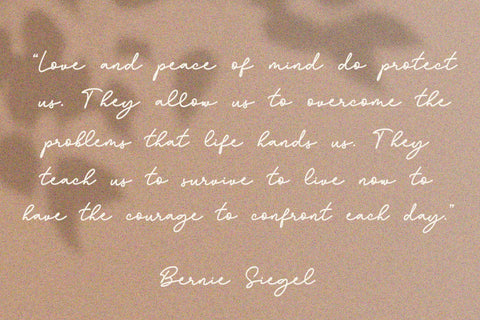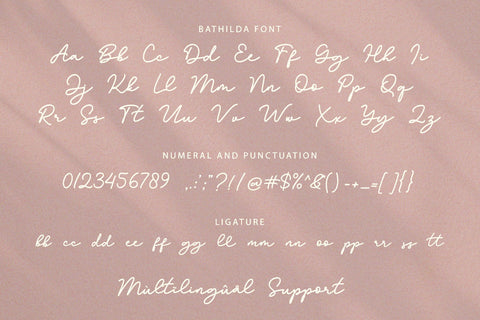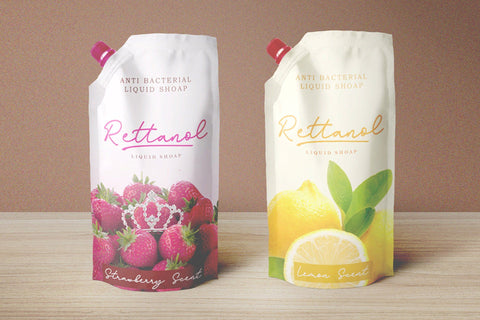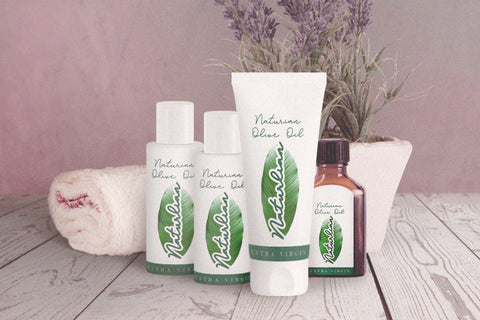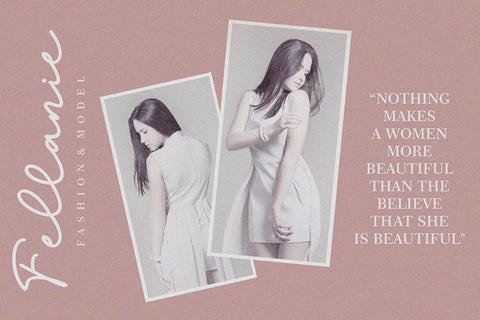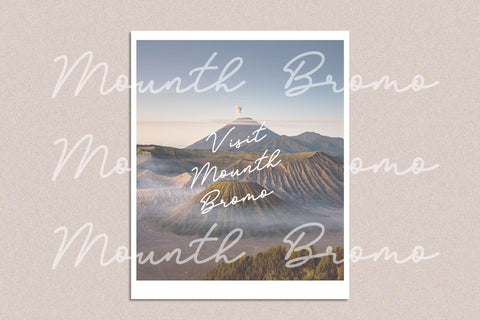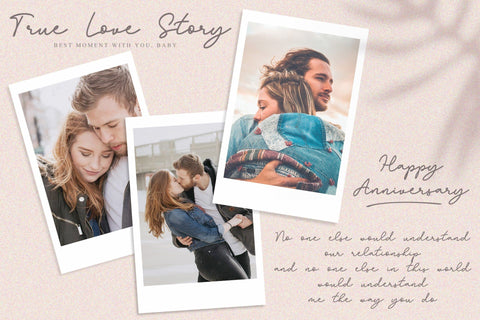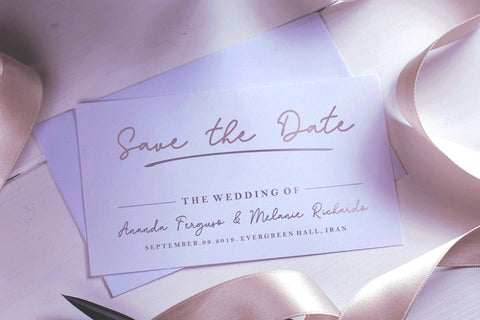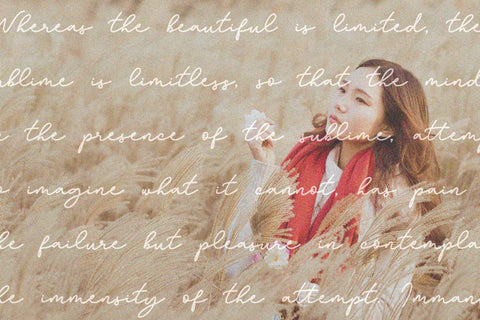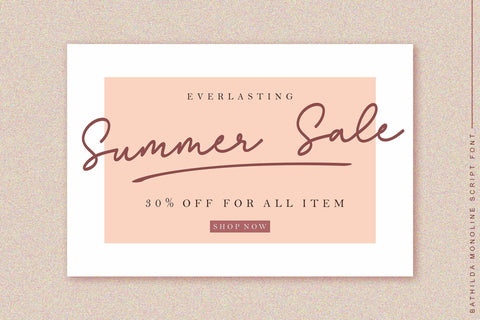
Bathilda - Monoline Font
The Bathilda is a monoline script font with an elegant style. It has good readability and is perfect for logos, invitations, wedding, signatures, and much more!